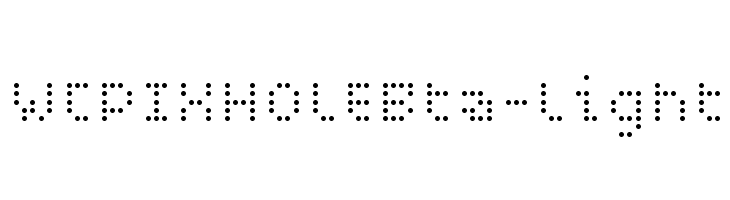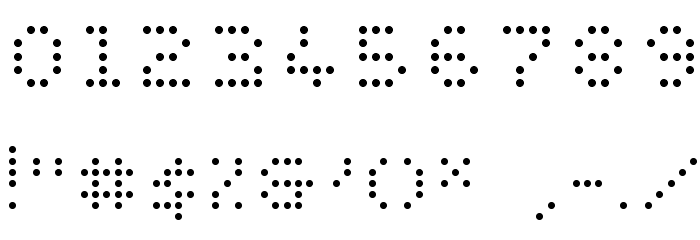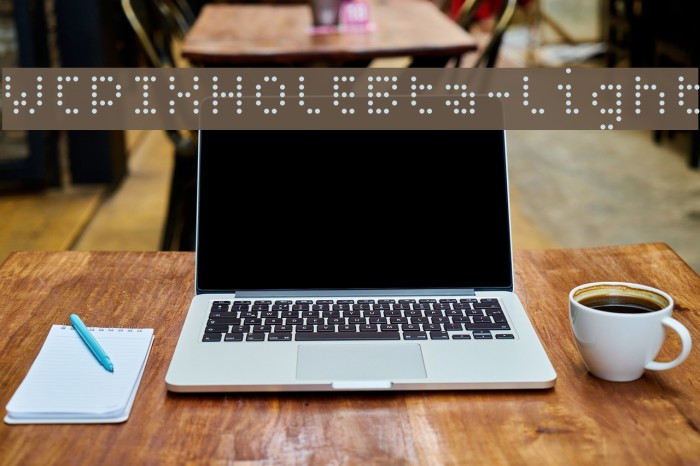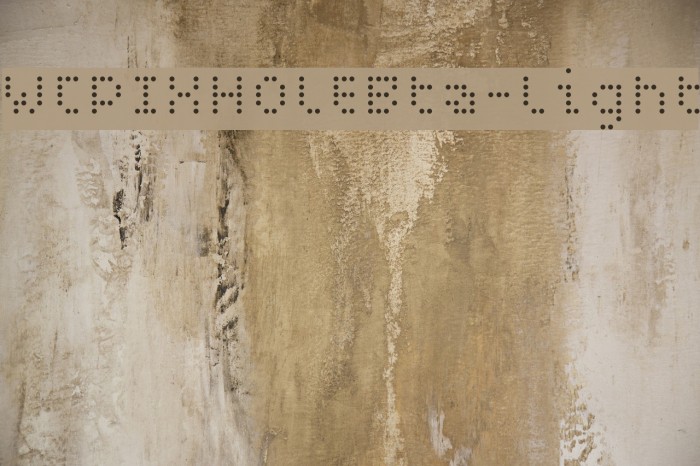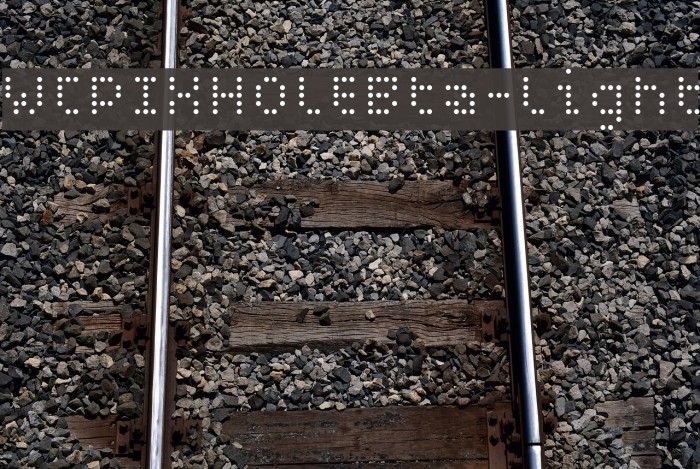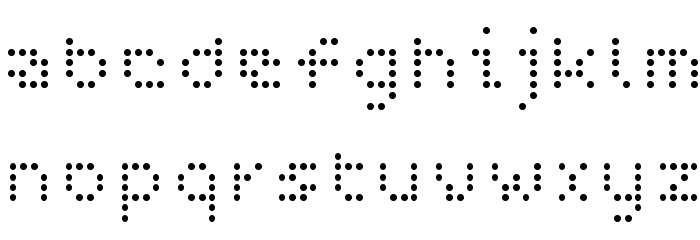
WCPIXHOLEBta-Light Font
This font features a unique dot matrix style, where each character is composed of a series of evenly spaced dots. The design is reminiscent of old digital displays or LED screens, providing a retro and technological feel. The characters are clearly defined despite the unconventional structure, ensuring readability. This font is particularly suitable for creative projects that aim to evoke a sense of nostalgia or a futuristic aesthetic. The uniformity of the dots across all characters gives it a cohesive appearance, making it ideal for both artistic and functional applications.
A dot matrix style font with a retro, digital display aesthetic.
• Proposed Projects: Ideal for digital art, retro-themed designs, tech-related branding, and creative posters.
• Category: Decorative/Display
• Bold: No
• Italic: No
• Weight: Light
• Width: Normal
• Character Spacing: Normal
• Contrast: Low
• Overall Style: Retro, Futuristic
• Use Case: Logos, Headlines, Digital Displays